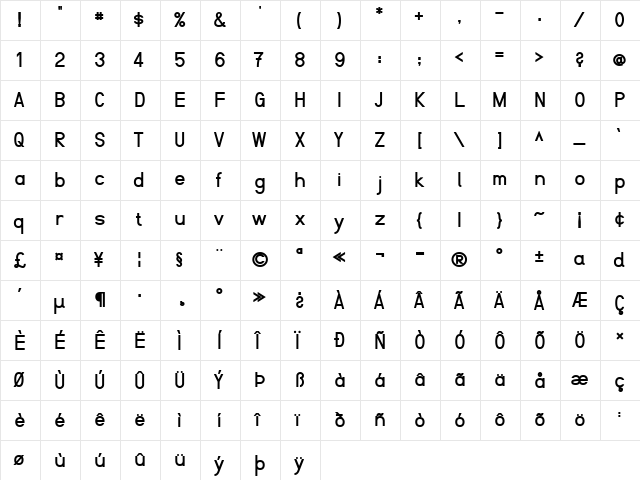
Fibel Nord Bold
Design Context for Fibel Nord Typeface
Fibel Nord offers clean, dependable letterforms without strong stylistic allegiance, making it a practical choice for designers who need flexibility. The heavy weight commands attention and anchors typographic hierarchies.